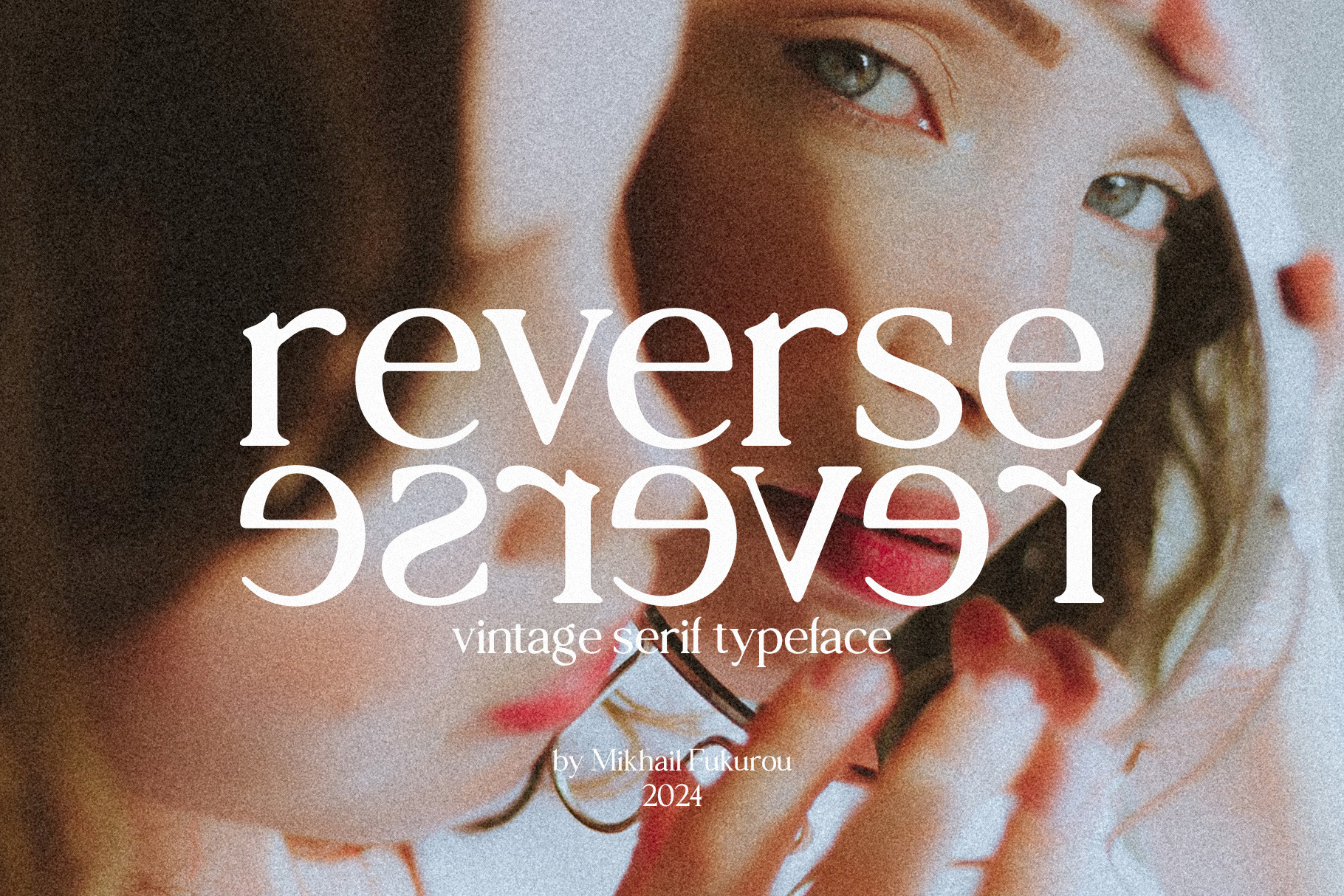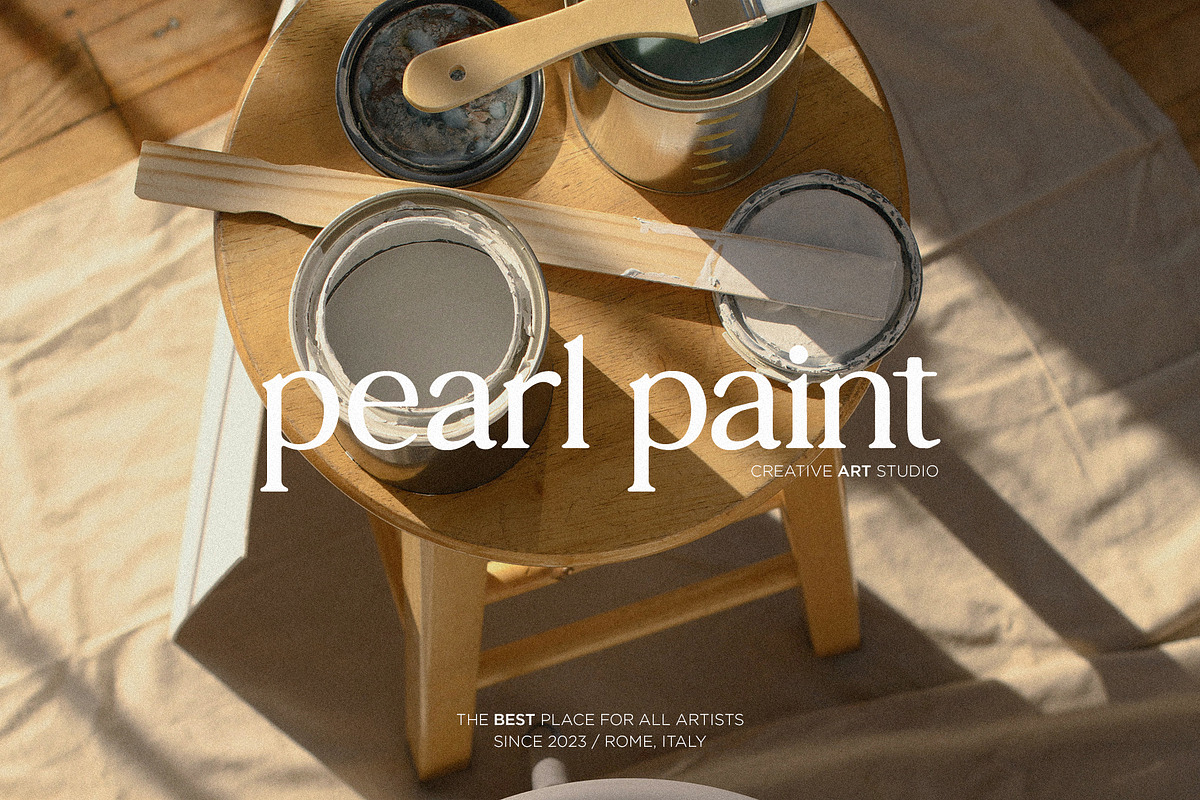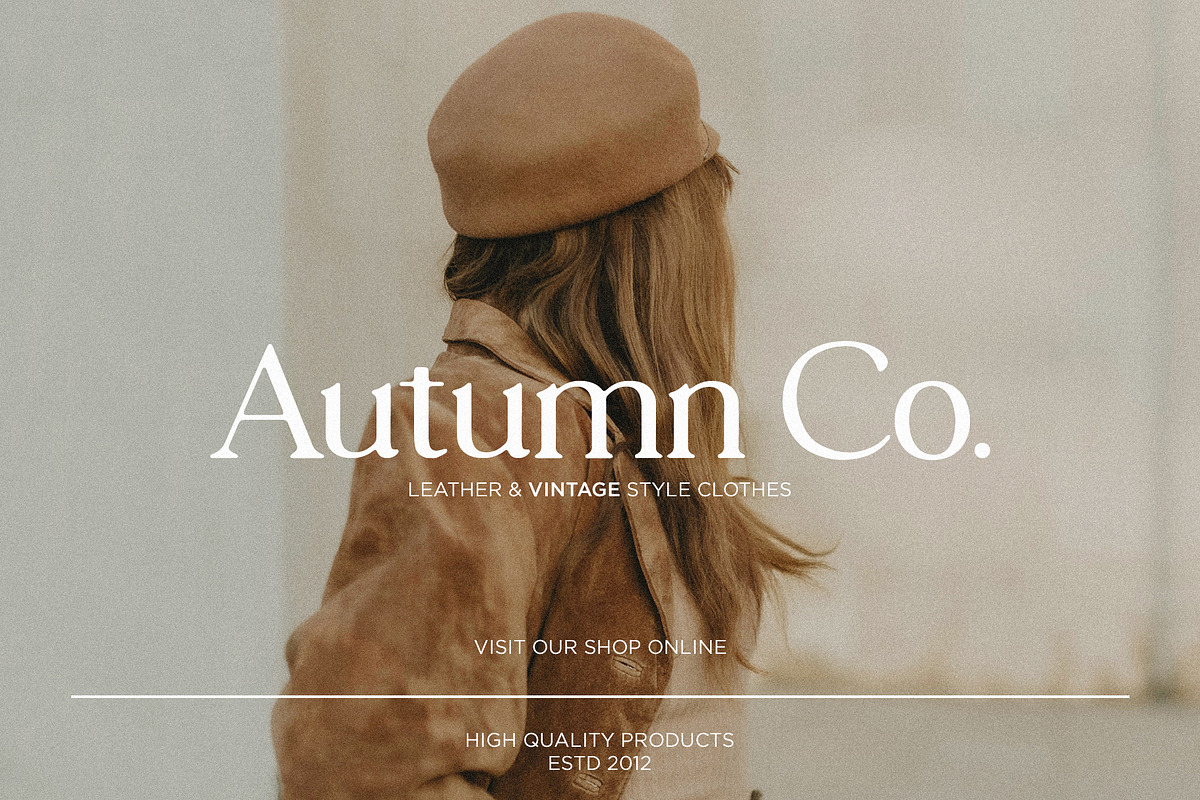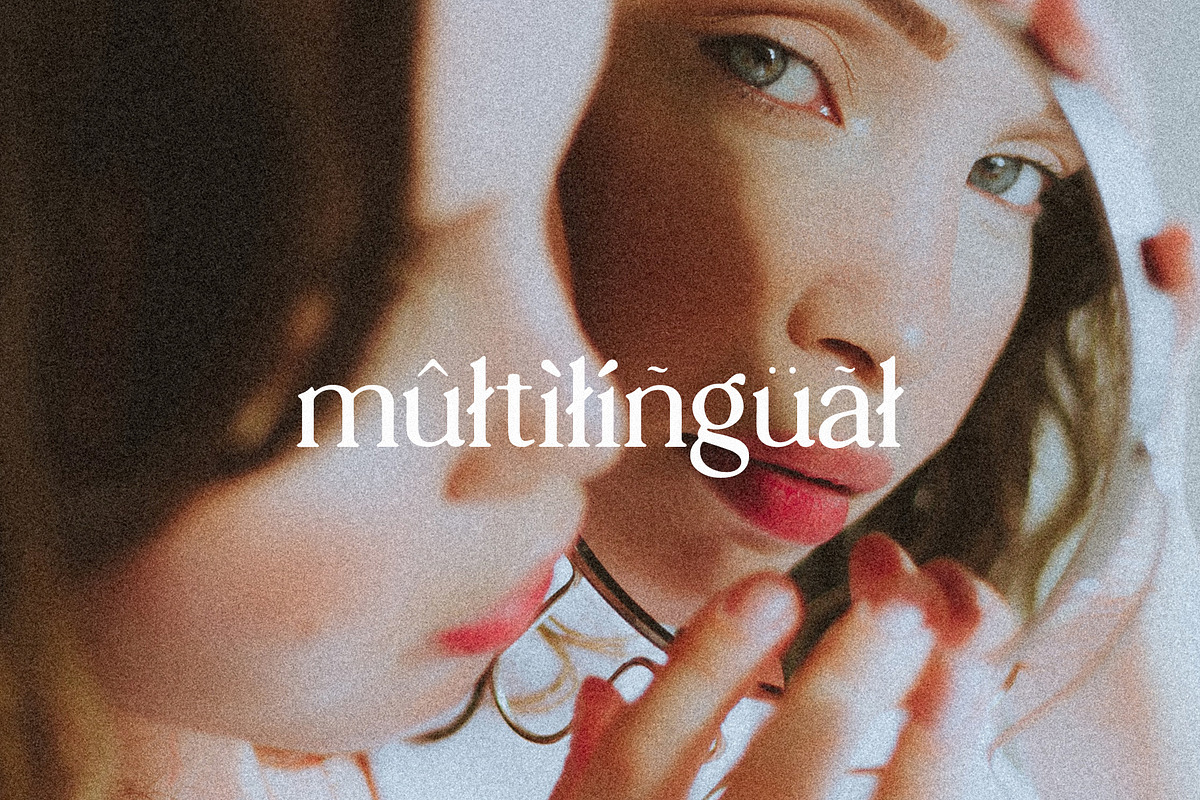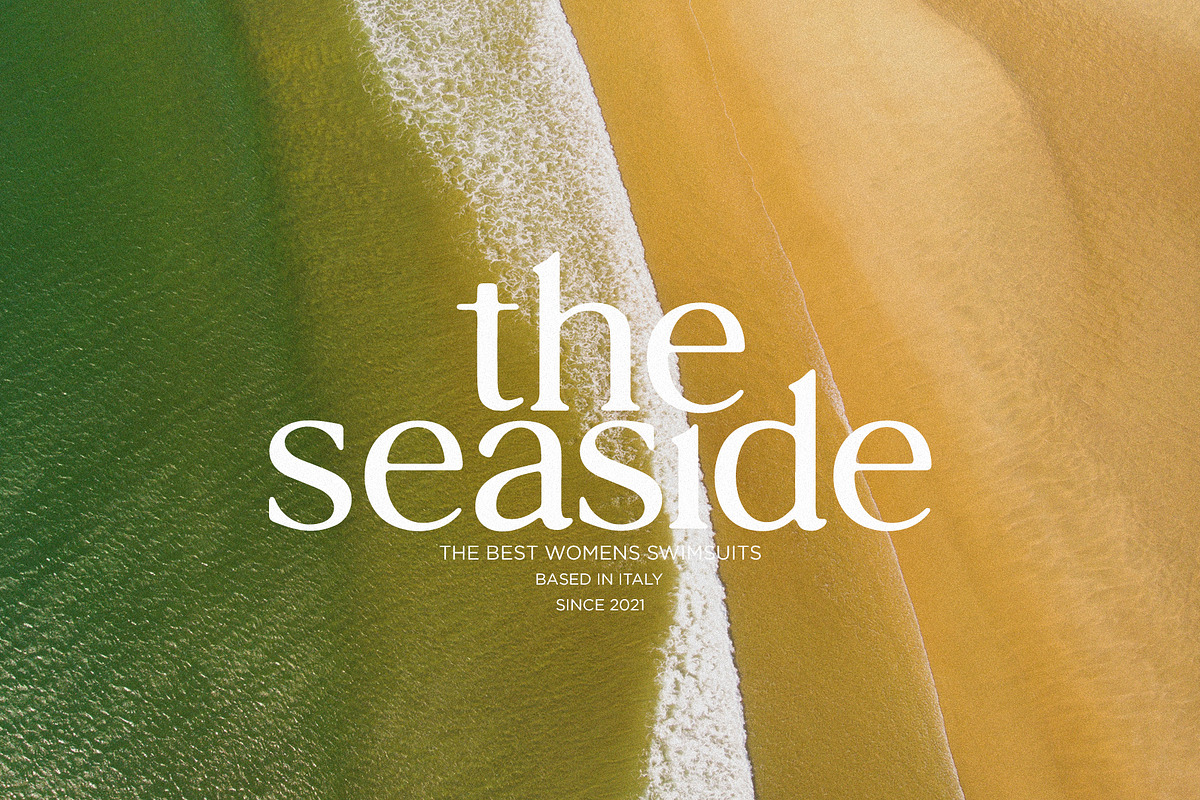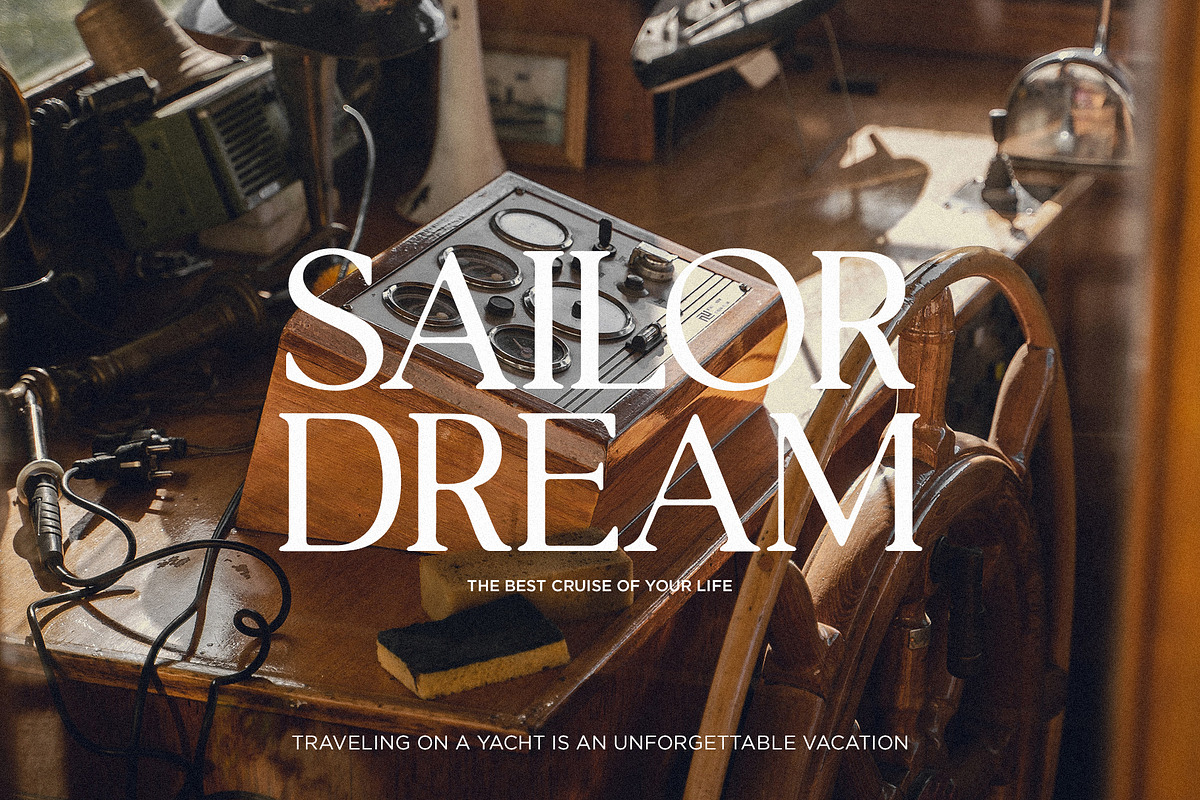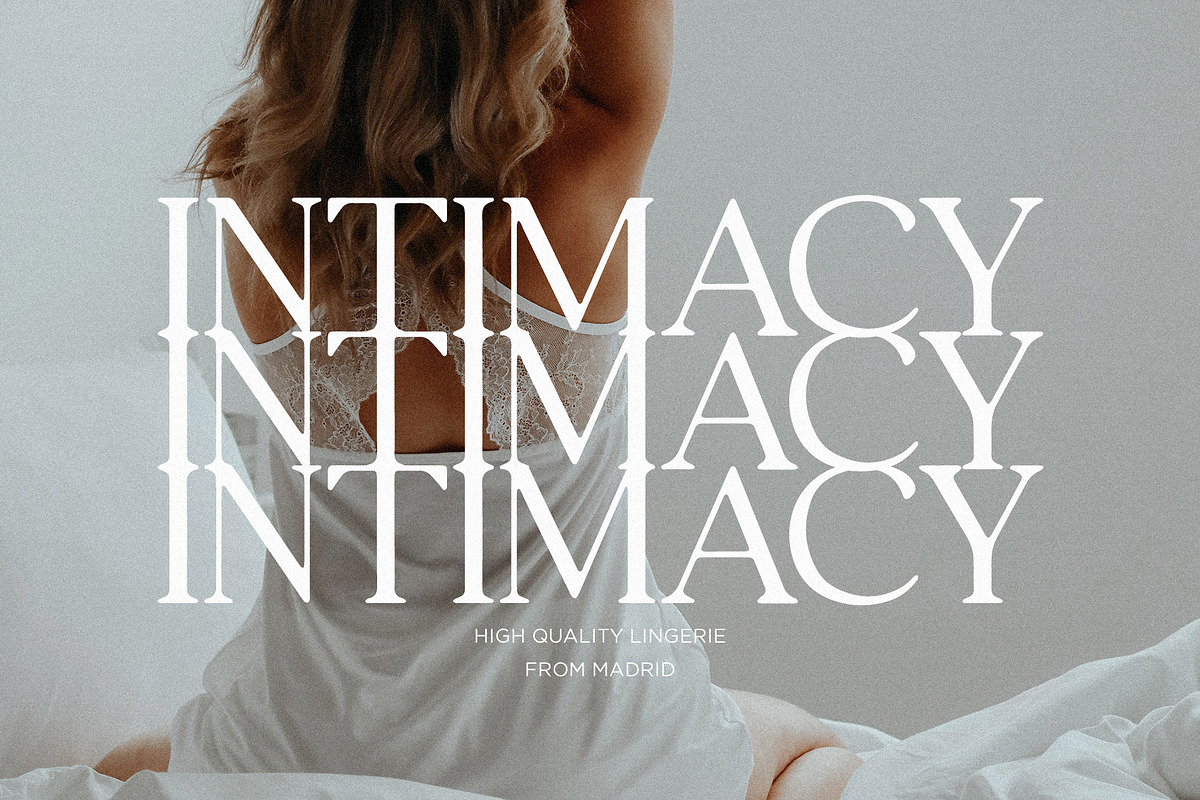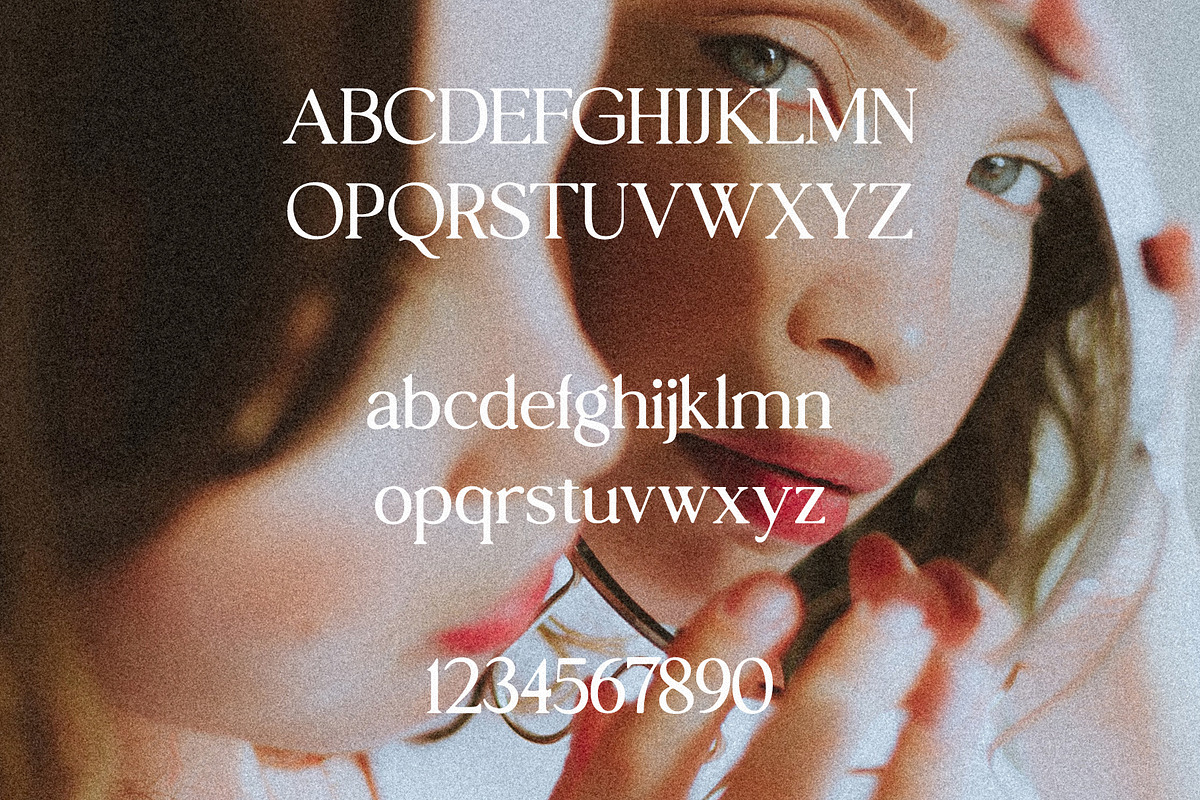
reverse - vintage serif typeface
Reverse is a vintage serif typeface that exudes elegance and sophistication. With its classic design and timeless appeal, Reverse is perfect for adding a touch of nostalgia to any project. Its intricate details and stylish curves make it a standout choice for those looking to make a statement with their typography. Whether used for branding, editorial design, or any other creative endeavor, Reverse is sure to leave a lasting impression.